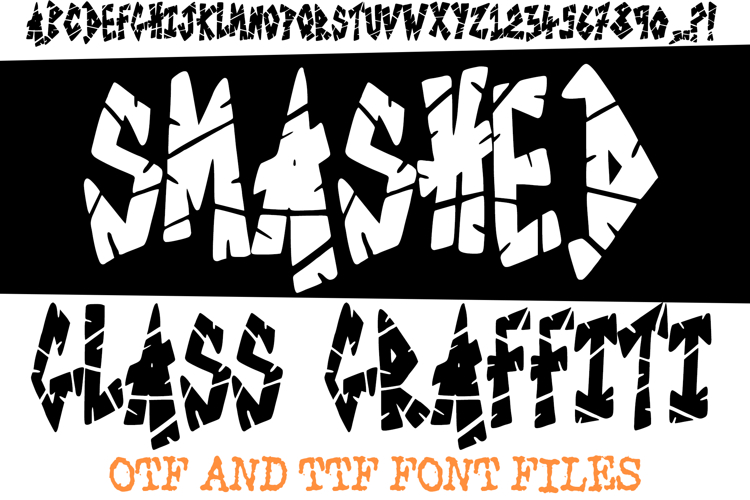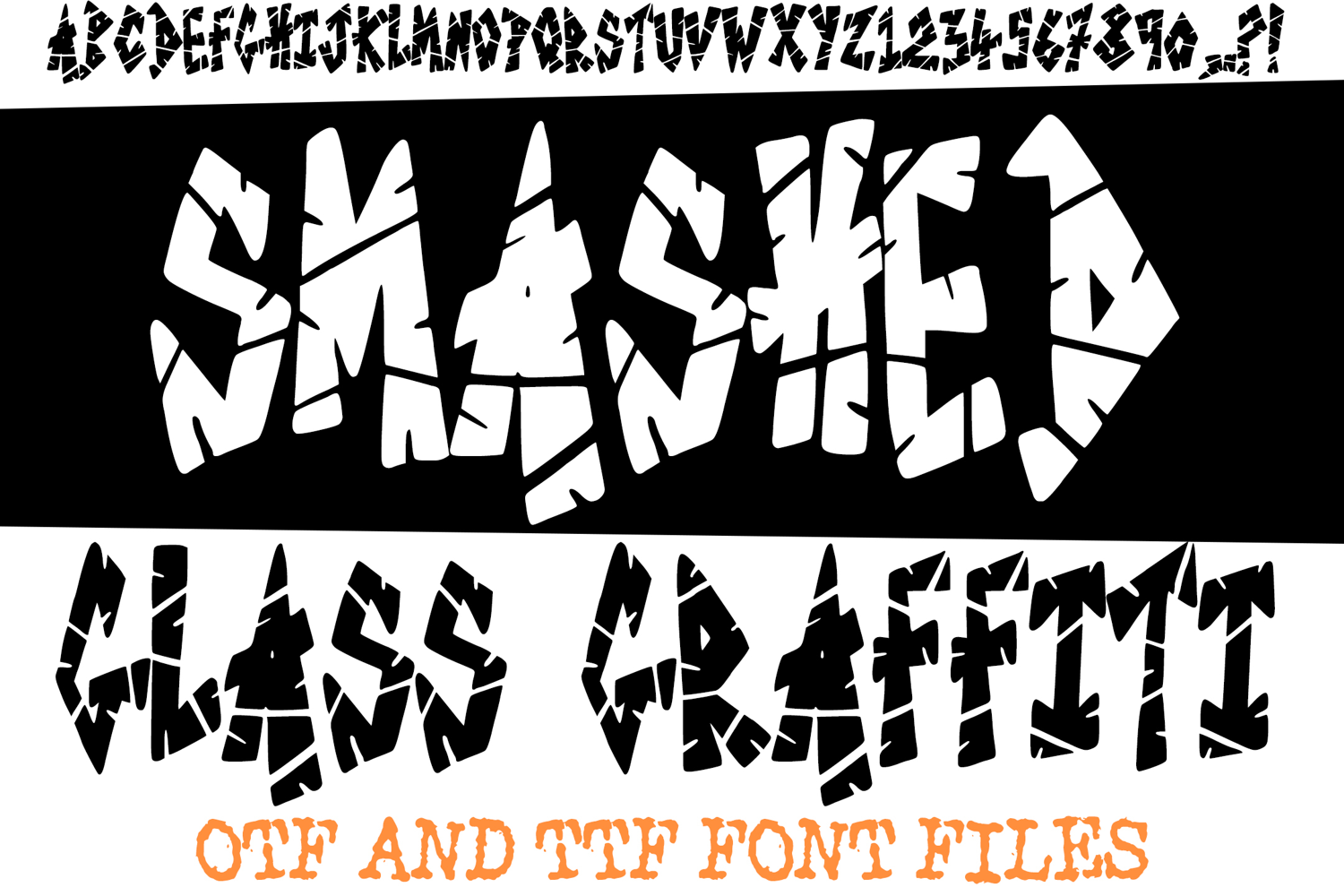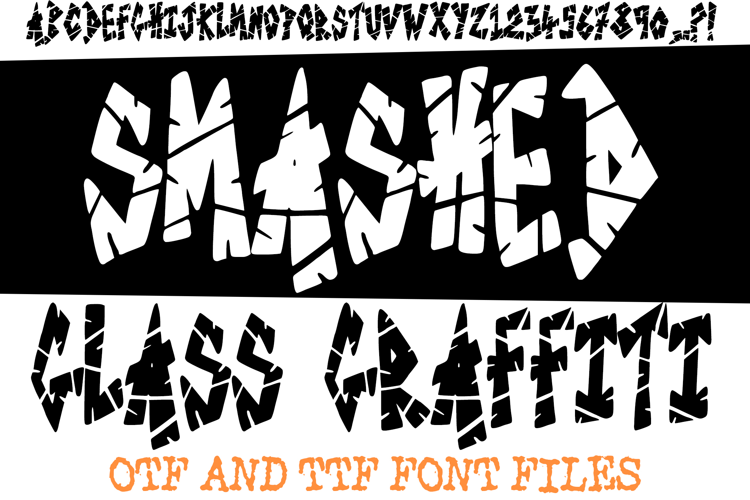
Smashed Glass Graffiti Alphabet Lettering ABC Text Font OTF
Unleash the raw, rebellious spirit of the streets with "Smashed Glass Graffiti," a striking new display font that captures the chaotic beauty of shattered glass merged with the audacious energy of urban graffiti art. This isn't just a typeface; it's a statement, perfect for designs that demand attention and defy convention.
Each character in "Smashed Glass Graffiti" is meticulously crafted to mimic fragmented shards, creating a powerful, dynamic, and undeniably edgy aesthetic. With its sharp angles, broken lines, and irregular shapes, this font exudes a sense of controlled chaos – ideal for projects that aim to break through the noise.
Unique & Bold: Stand out from the crowd with a truly distinctive look that combines industrial grit with streetwise flair.
High-Impact Display: Perfect for headlines, logos, posters, album covers, apparel, event promotions, and anything needing a strong visual punch.
Urban & Modern Vibe: Instantly infuse your designs with a contemporary, rebellious, and artistic street art feel.
Versatile for Edgy Themes: Ideal for punk, rock, hip-hop, extreme sports, activist art, or any project that embraces a raw, non-conformist aesthetic.
If you're looking to add an aggressive yet artistic edge, a sense of broken beauty, or a truly memorable visual identity to your work, "Smashed Glass Graffiti" is your go-to font. Break free from traditional typography and make your mark!